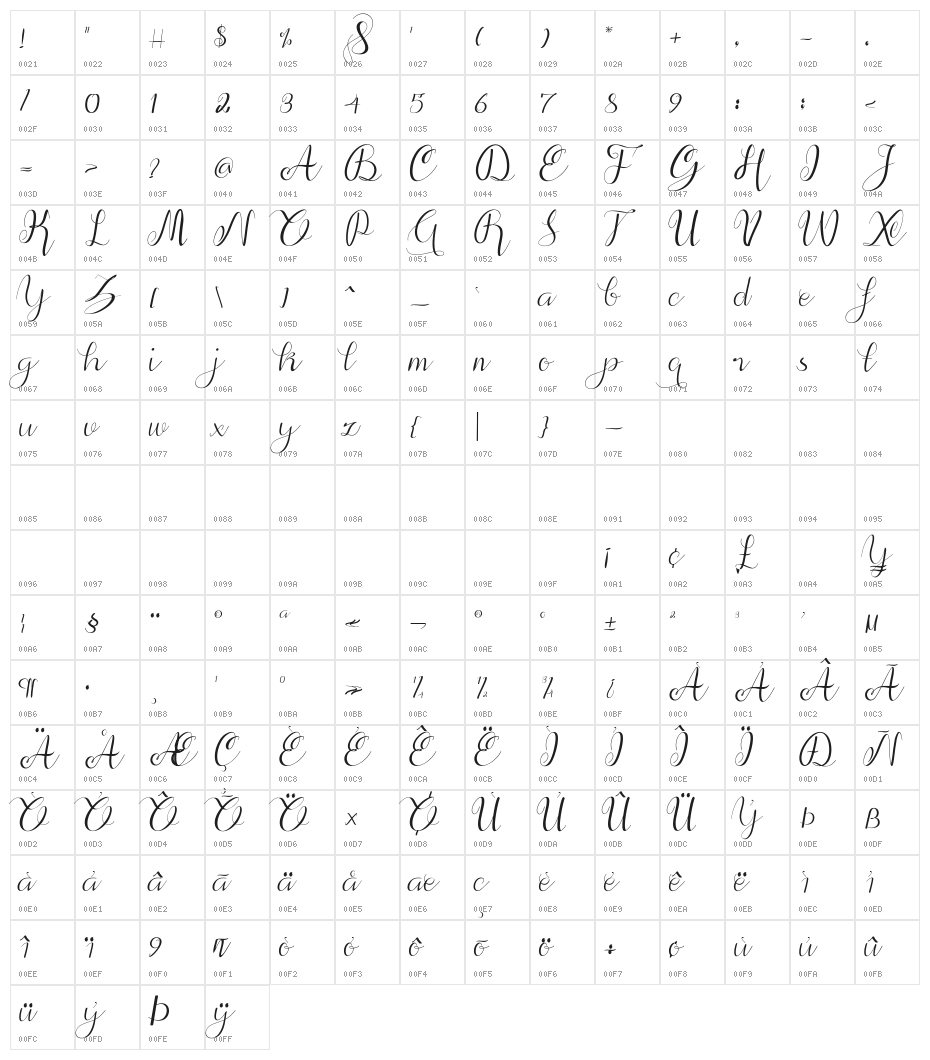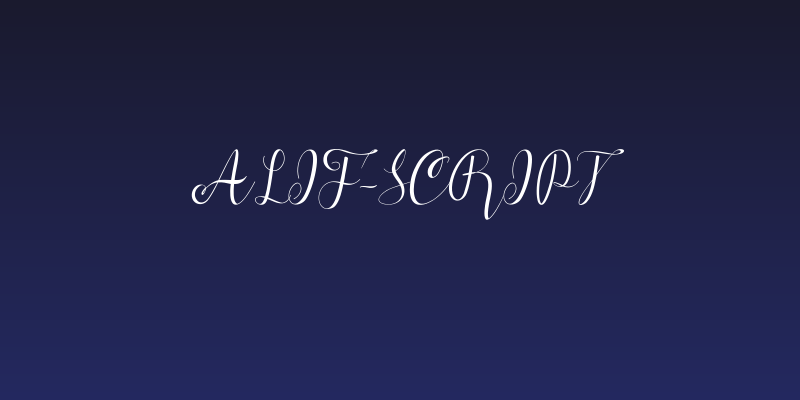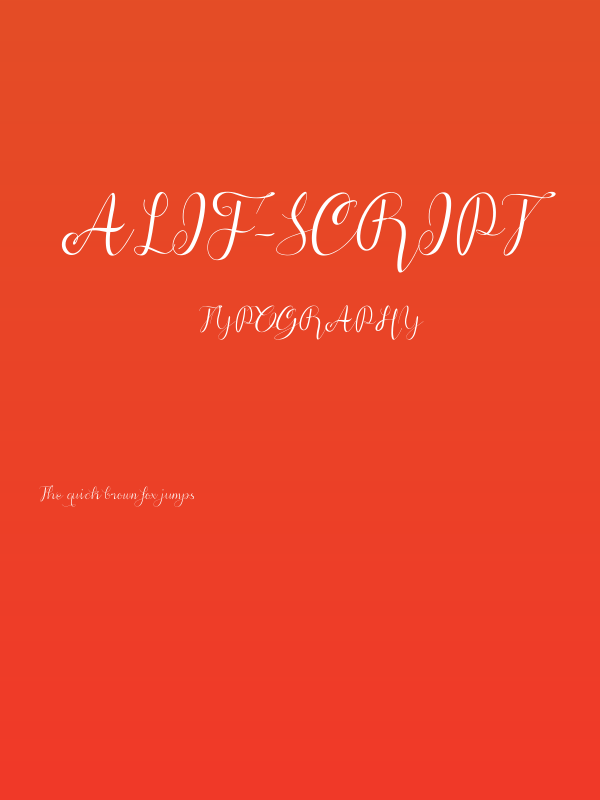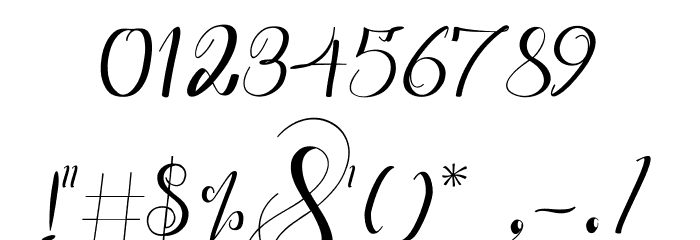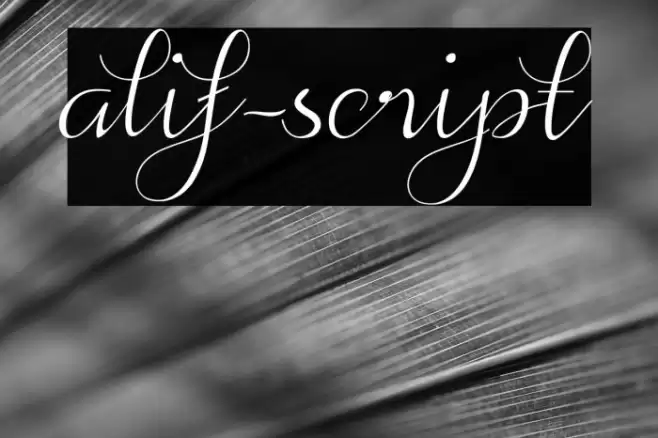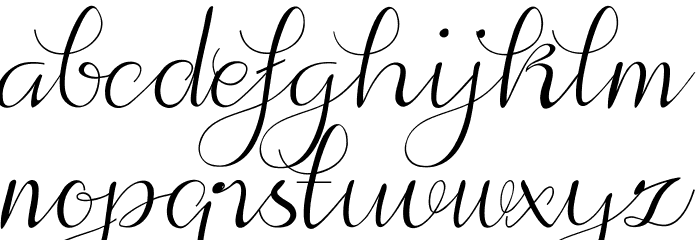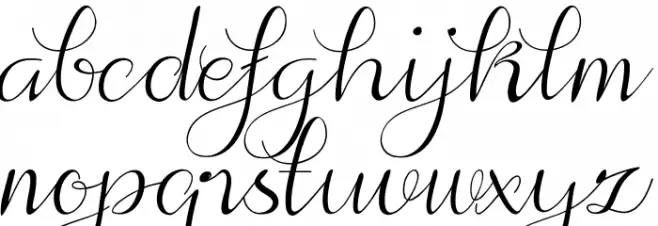
alif-script Font
alif-script Description
This elegant script font features flowing, interconnected letters with a graceful and sophisticated appearance. The uppercase letters are adorned with intricate swashes and loops, giving them a decorative flair. The lowercase letters maintain a consistent fluidity, enhancing the overall cohesiveness of the design. The numerals and special characters are crafted with the same attention to detail, ensuring a harmonious look across all glyphs. The font's delicate strokes and high contrast between thick and thin lines contribute to its refined and luxurious style, making it ideal for formal and artistic applications.
| Proposed Projects | Ideal for wedding invitations, elegant branding, high-end product packaging, and artistic projects. |